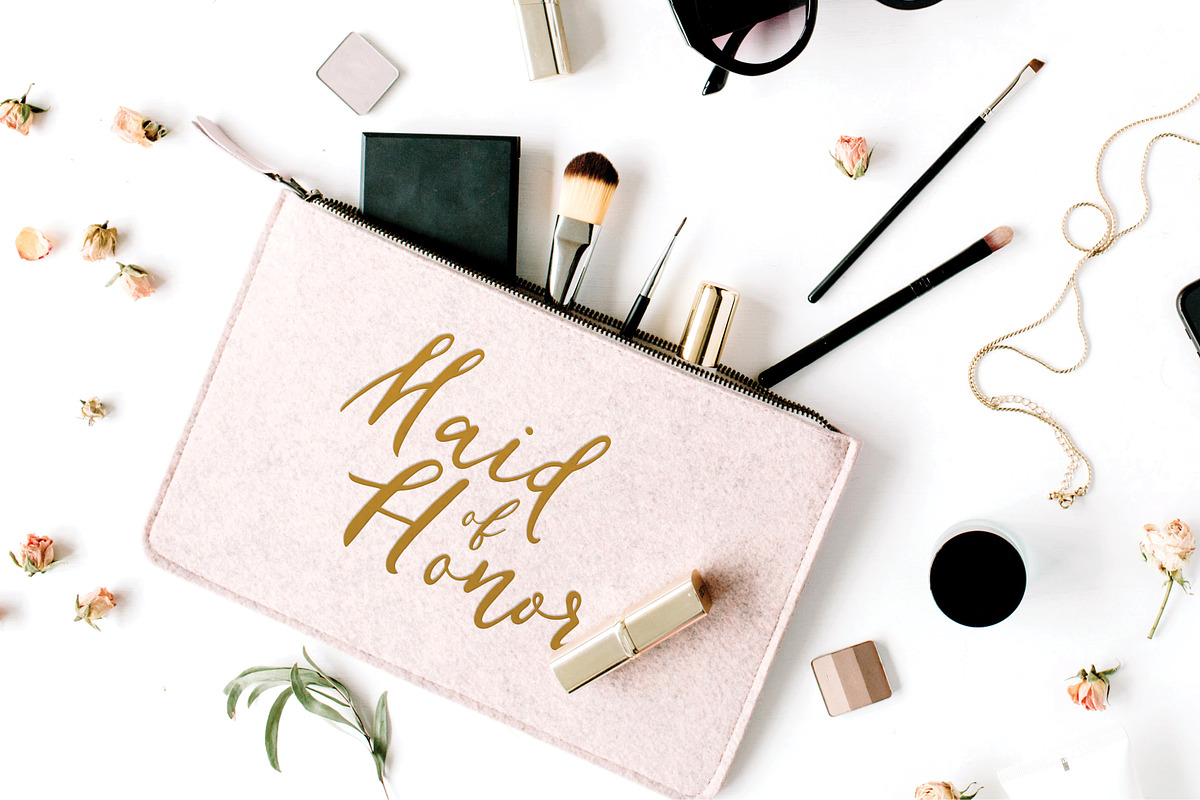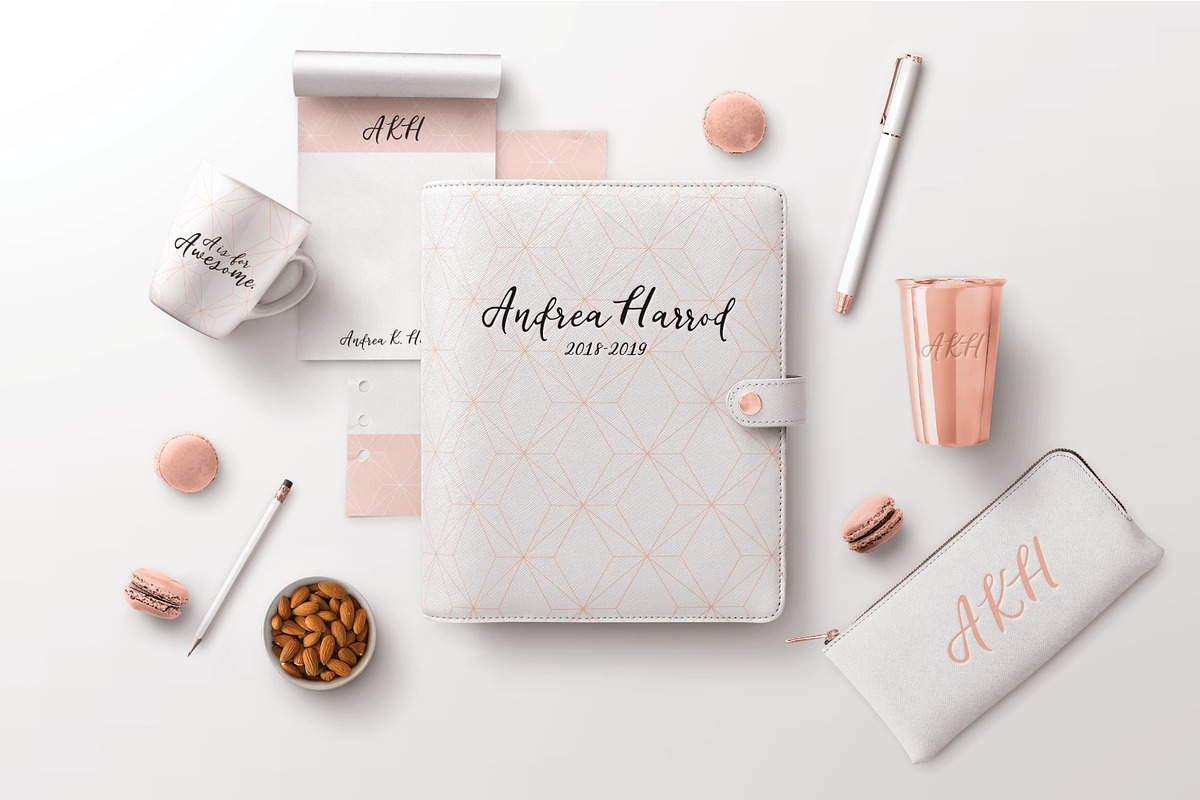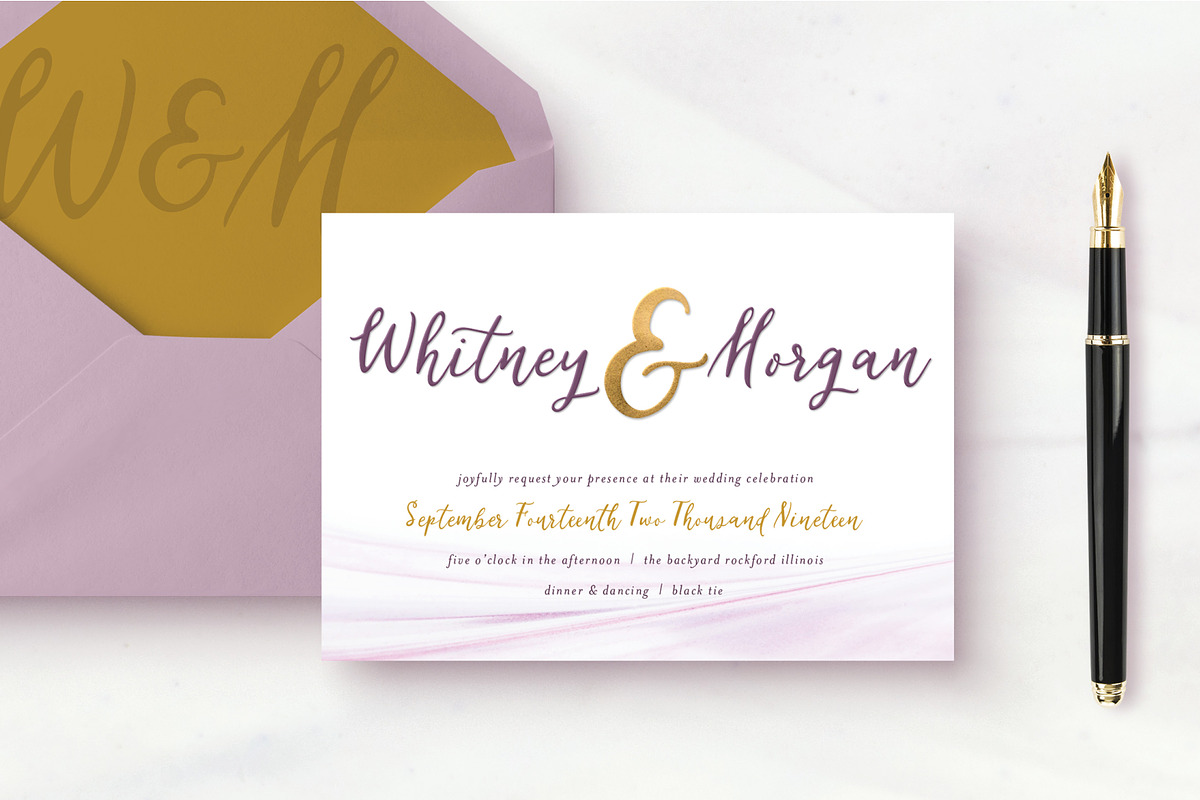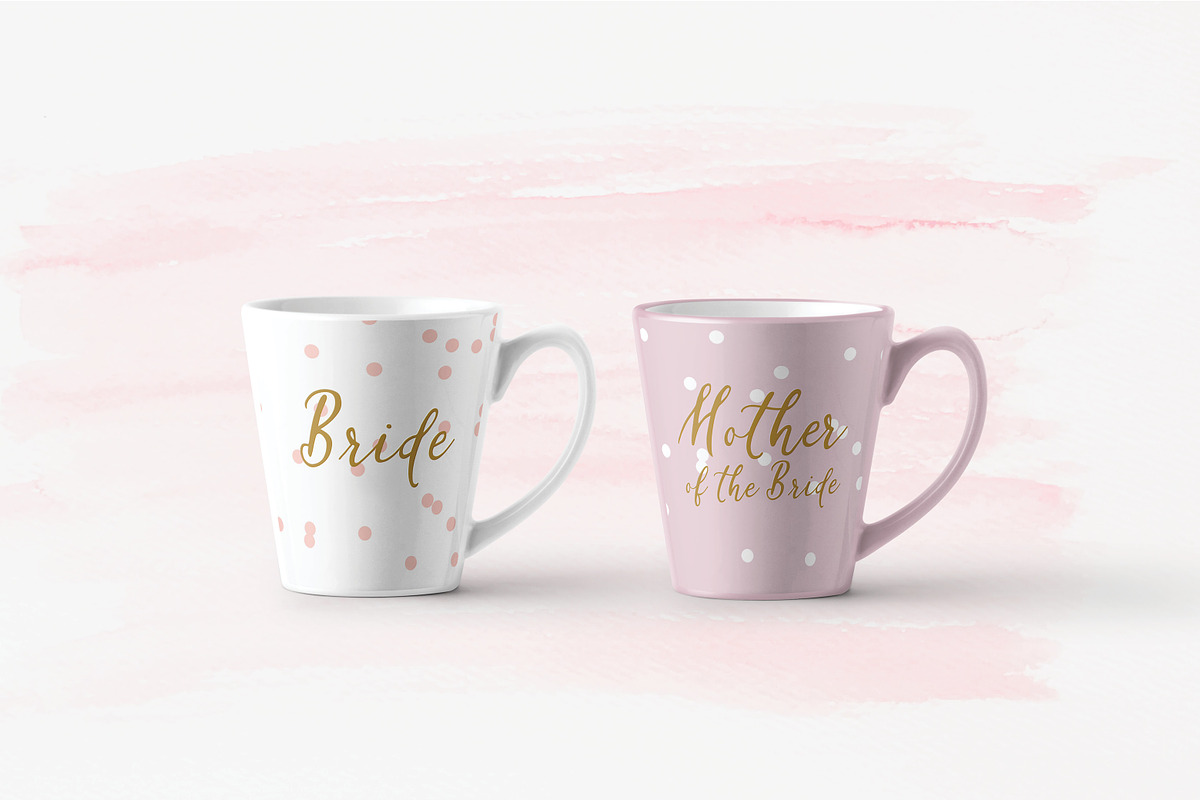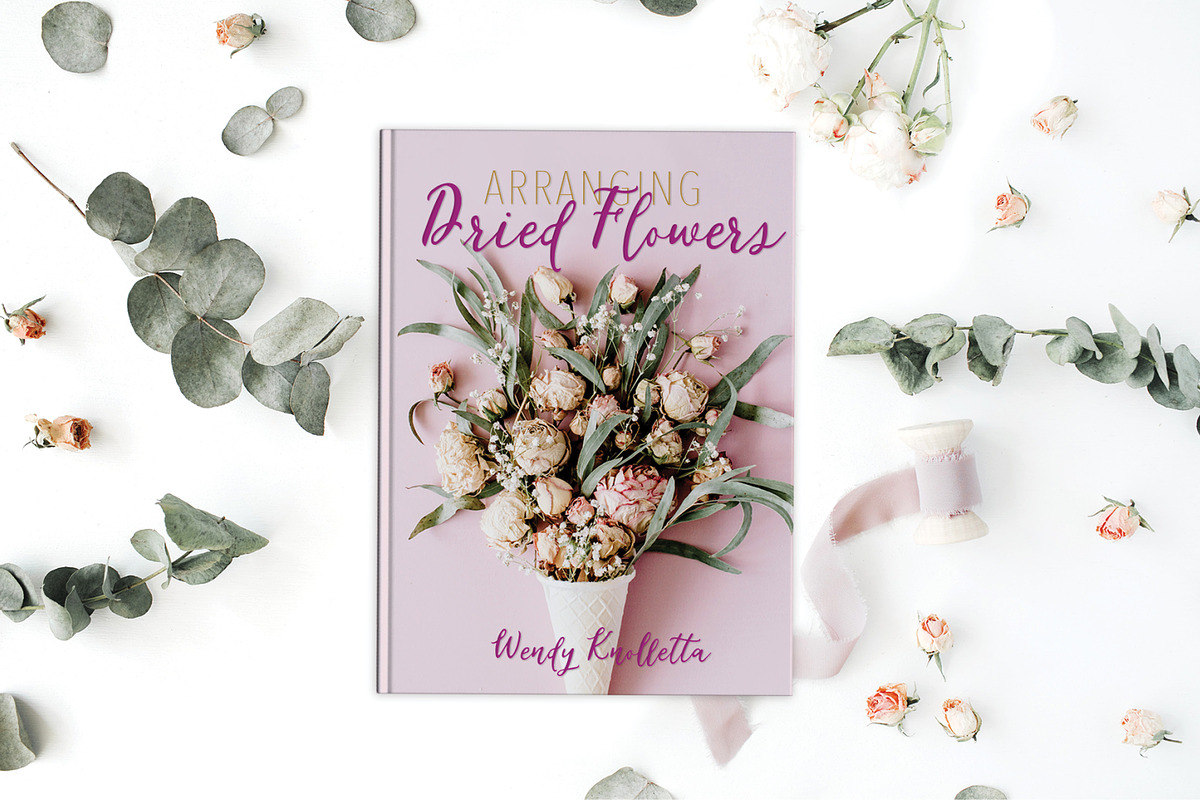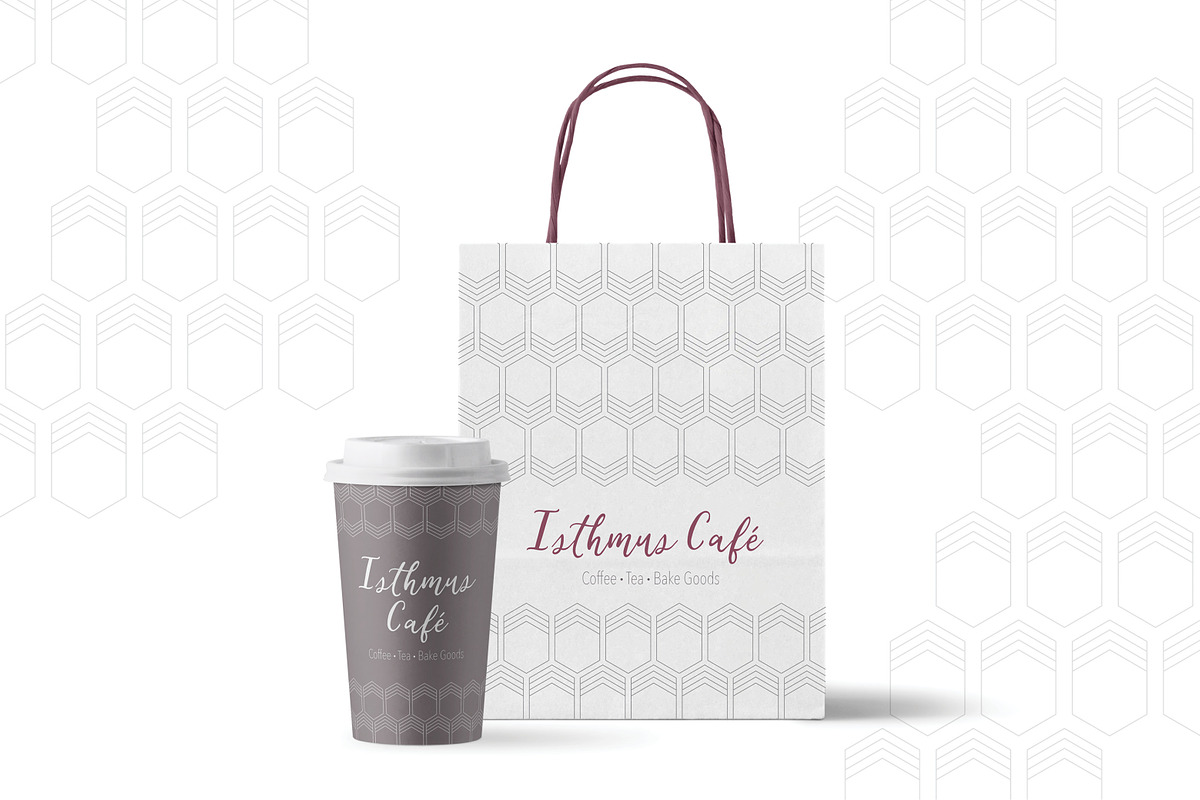
Forever Love: A Calligraphy Font
Forever Love: A Calligraphy Font by Cottonwood312 is a font selected for branding, posters, packaging, typography.
- Forever Love contains over 55 unique standard and stylistic ligatures.
- Multilingual support is also included for Western European Language.
- The font has beautiful and unique characters for your invitations, greeting cards, logo designs, book covers, branding, merchandise and soci
Why Forever Love: A Calligraphy Font is worth a look
Forever Love: A Calligraphy Font by Cottonwood312 fits naturally into Branding, posters, packaging, typography.